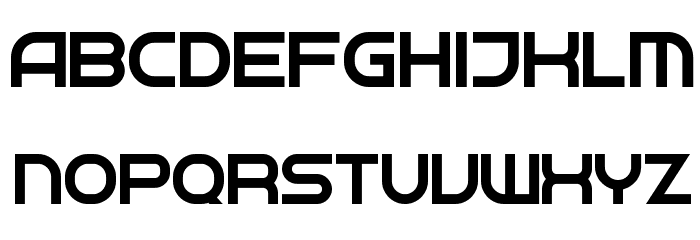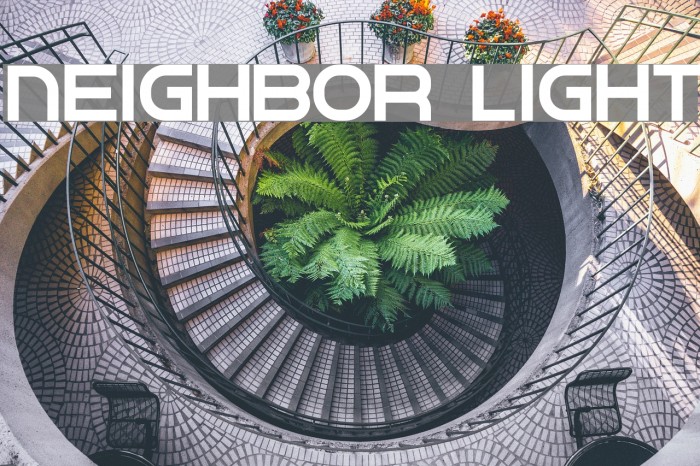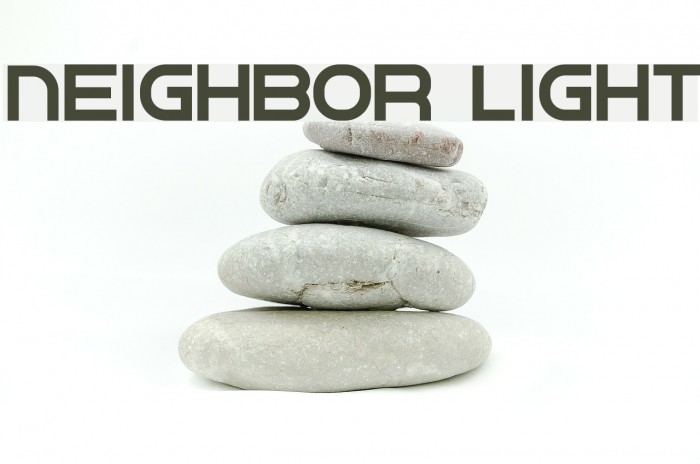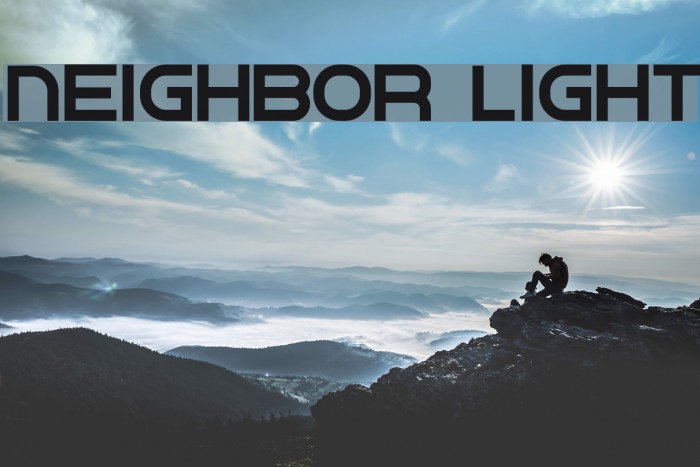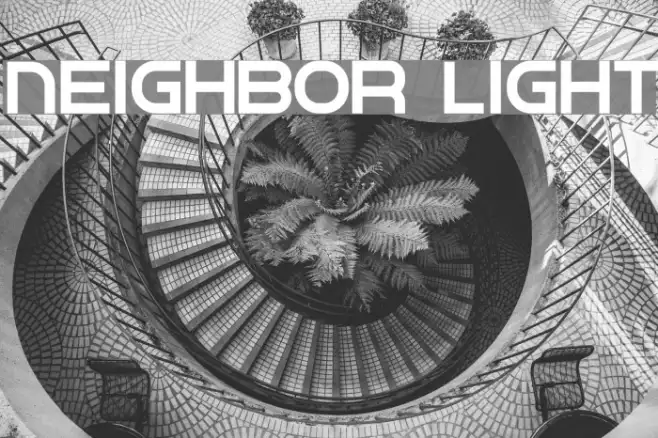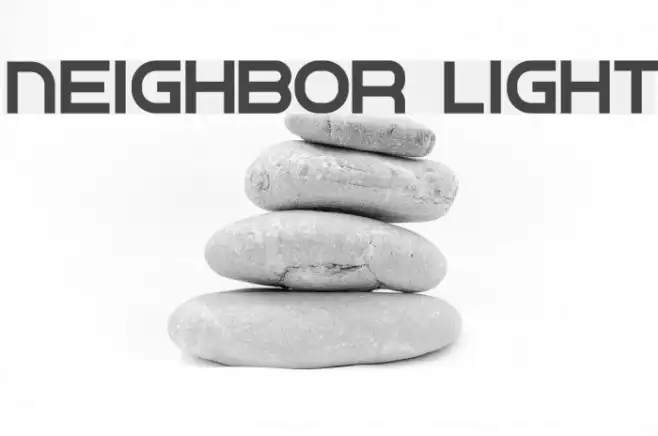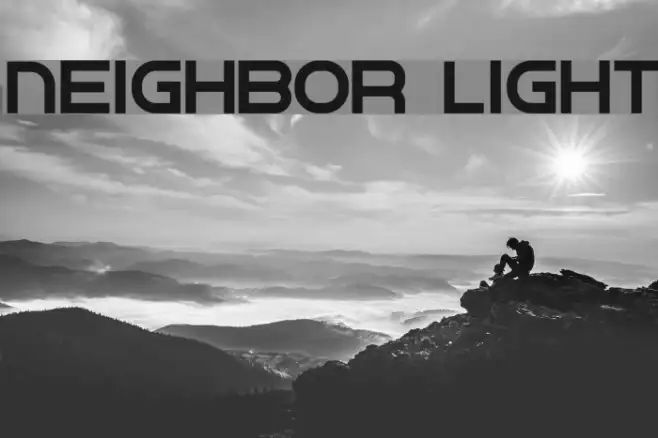
Neighbor Light Font
This font features a modern, geometric design with clean lines and a bold presence. The characters are uniformly structured, exhibiting a futuristic and sleek aesthetic. The uppercase and lowercase letters maintain a consistent width, contributing to a balanced and harmonious appearance. The numerals are distinct and easily readable, while the special characters complement the overall style. The font's design is versatile, making it suitable for various applications that require a contemporary and professional look.
A modern, geometric font with clean lines and a bold, futuristic aesthetic.
- Proposed Projects: Ideal for branding, advertising, digital interfaces, and modern editorial design.
- Use Case: Headlines, Logos, Digital Interfaces